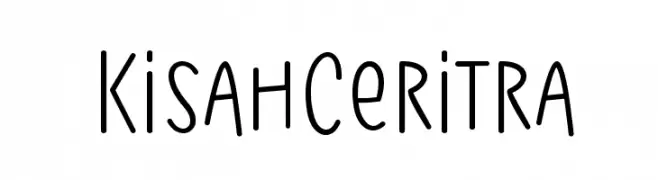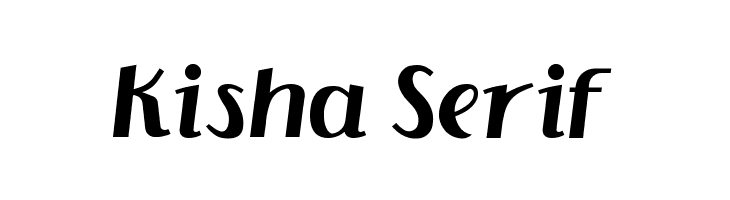
A playful, handwritten font with tall, narrow letters and smooth, rounded strokes.
A dynamic serif font with elegant slant and moderate contrast, perfect for versatile applications.